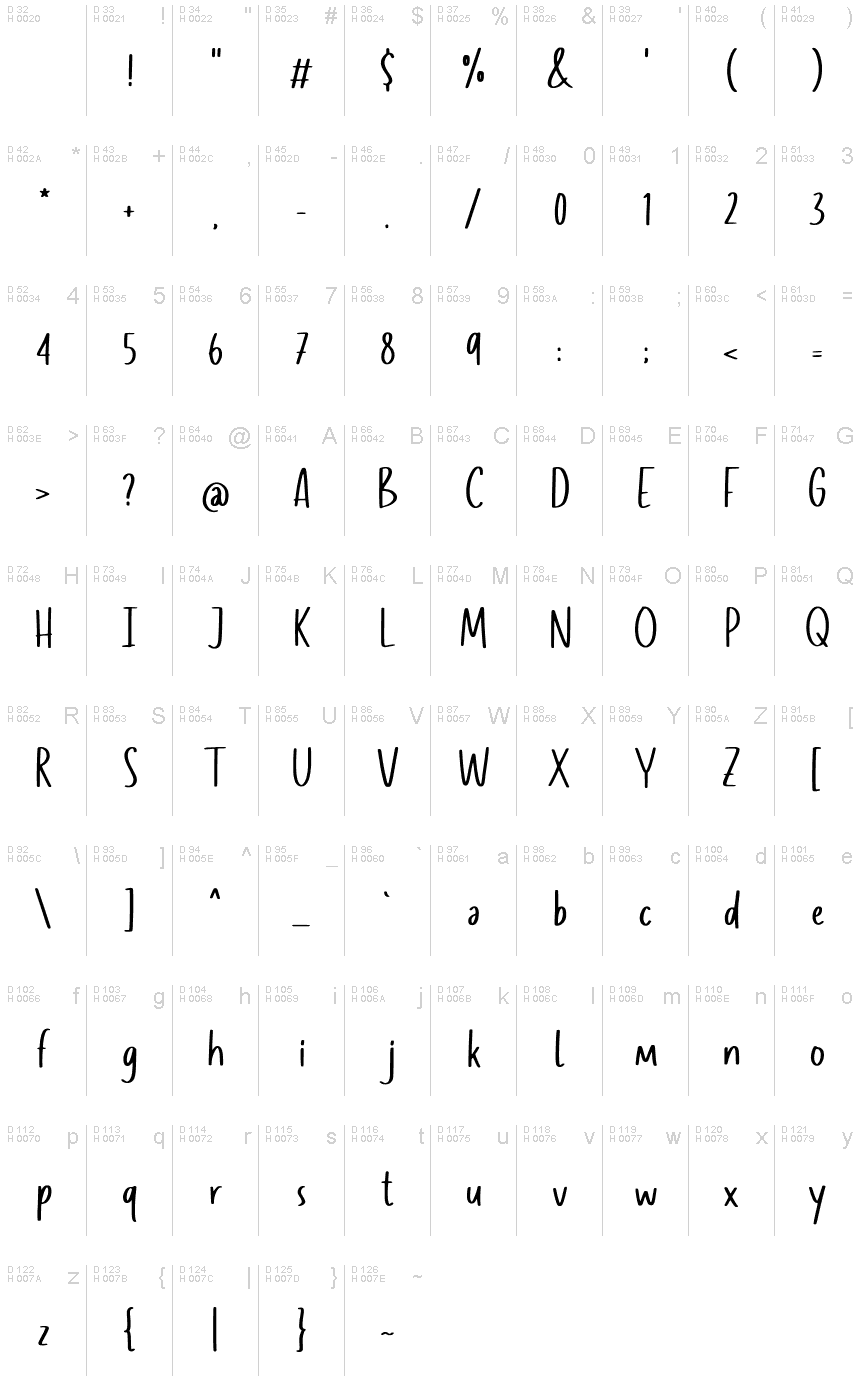
Chuello Jambully
Chuello Jambully, the quirky handwritten font designed by Allouse.Studio, adds a playful touch to any project. Its semi-light weight and semi-condensed width make it perfect for headlines and titles that need to stand out. Use it to add a whimsical feel to children's books, greeting cards, or even branding for a fun-loving company. Chuello Jambully's unique style is sure to leave an impression on your audience and make your project memorable.